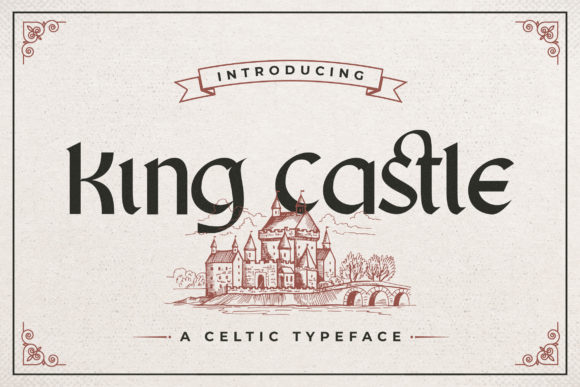
Introducing King Castle Font, the perfect choice for those seeking the best font for quote tattoos. Created by TypeFactory, this elegant and unique display font is sure to capture your imagination and take your designs to new heights.
Drawing inspiration from the captivating Celtic styles, King Castle boasts a cool and original look that will add a touch of magic to any project. Its intricate details and graceful curves make it stand out from the crowd, giving your creations a truly mesmerizing appeal.
Whether you're designing letterheads, titles, or stationery, King Castle is the font that will elevate your work to the next level. Its versatility knows no bounds, effortlessly adapting to any theme or concept you have in mind. With this font, your designs will exude an air of sophistication and artistry that is both captivating and memorable.
But King Castle Font is more than just a pretty face. It is carefully crafted to evoke emotions and create a connection with your audience. Its timeless elegance and artistic flair will speak to the hearts of those who appreciate the finer things in life. It's not just a font; it's a work of art that tells a story.
Imagine the impact of beautiful quote tattoos created with King Castle Font. Each letter becomes a brushstroke on the canvas of your skin, etching words that hold deep meaning and resonate with your soul. It's not just ink; it's an expression of your individuality, a reminder of the power of words to inspire and uplift.
Whether you're a designer, a tattoo enthusiast, or someone who simply appreciates the beauty of typography, King Castle Font is a must-have addition to your collection. Let its enchanting allure breathe life into your projects and leave a lasting impression on anyone who encounters them.